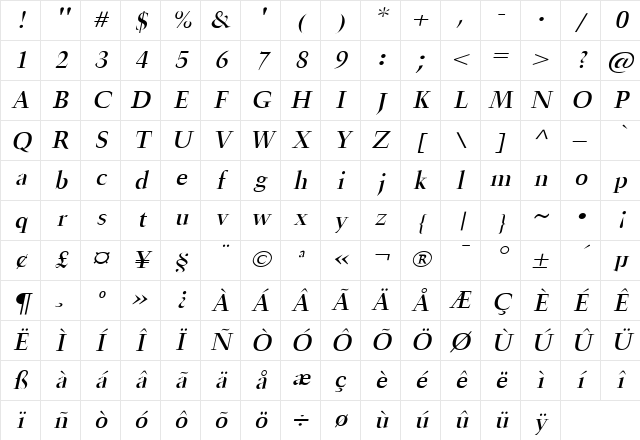
Horn Wide Italic
Horn Wide Family
Horn Wide Italic
Complete Horn Wide Italic glyph index. Displaying only characters natively supported by Horn Wide Italic font.
Design Context for Horn Wide
Horn Wide is a composed and adaptable typeface that performs quietly and consistently across a wide range of design contexts. The slanted form adds forward momentum and visual energy.
Pro Tip: Use Horn Wide for emphasis, pull quotes, and subheadings where its slanted energy can add rhythm to the layout.